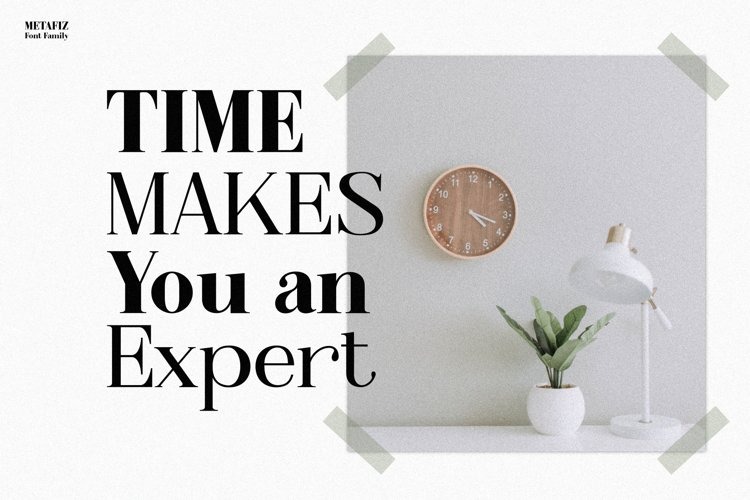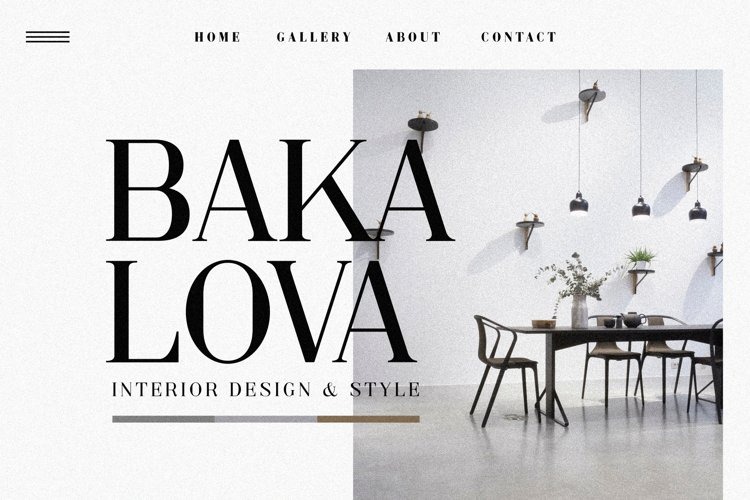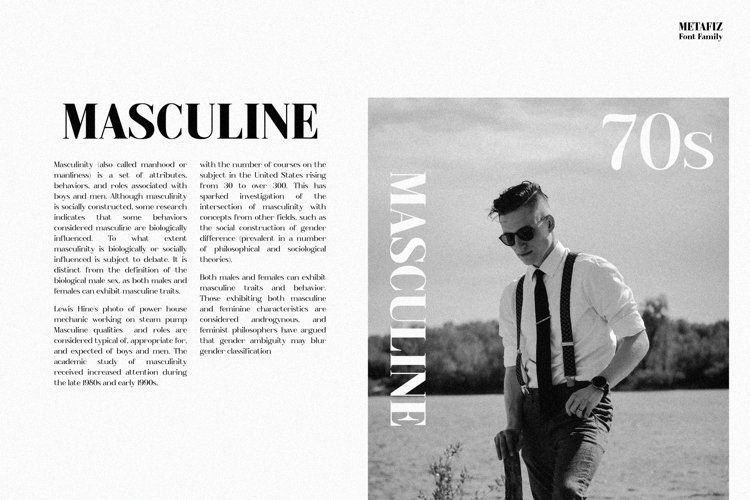
Metafiz Serif Font
A modern serif typeface manufactured by Java pep. It looks superb with its minimal-styled design. Metafiz comes with 4 variable styles regular, italic, bold, and bold italic. Don’t worry about the features, Metafiz completed with uppercase & lowercase, numeral, punctuations, and multilingual that support 17 languages.